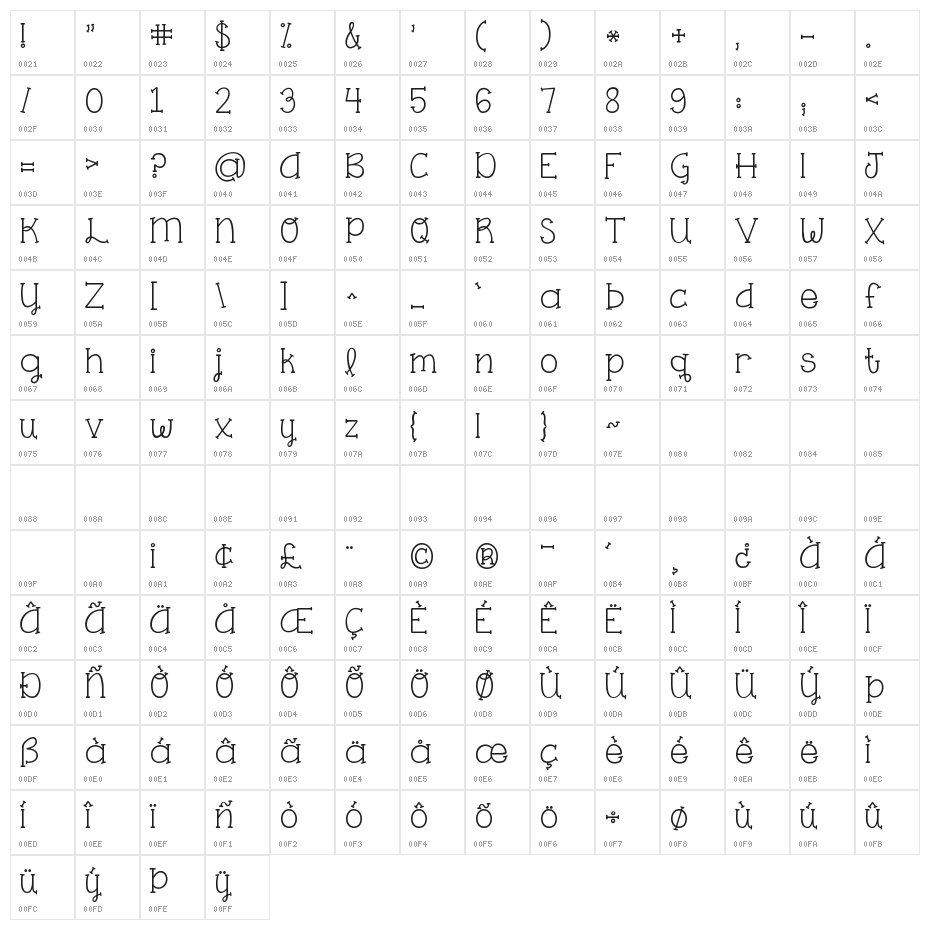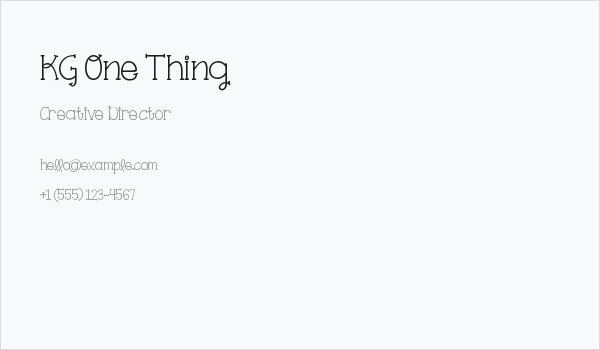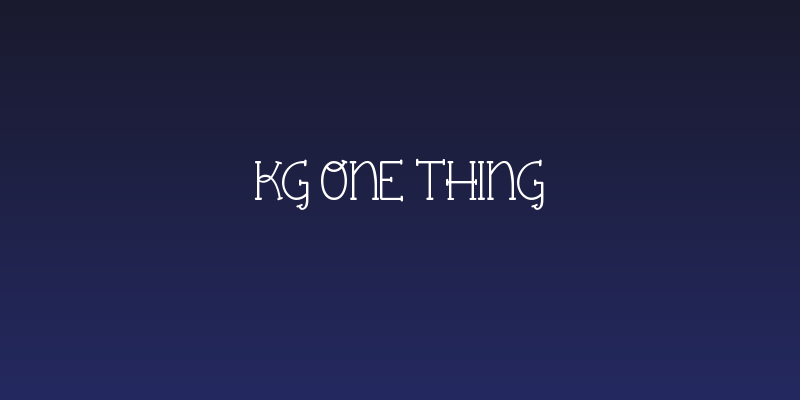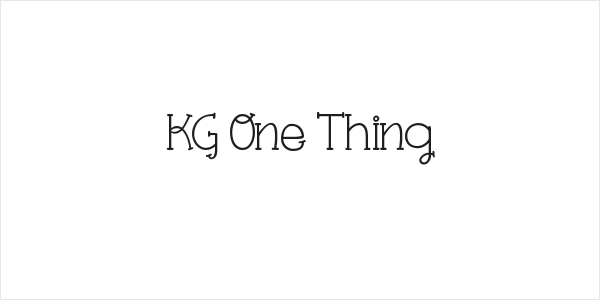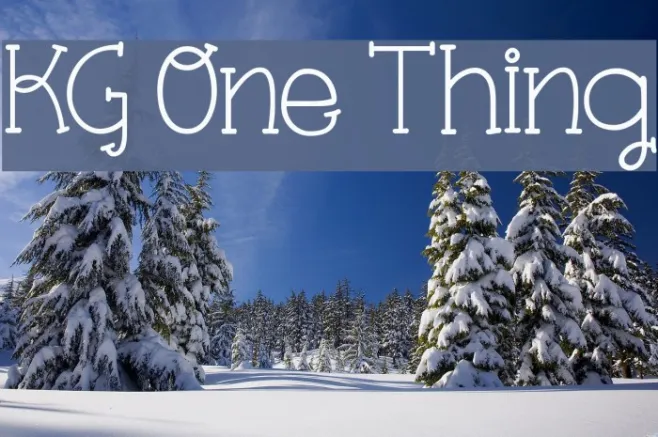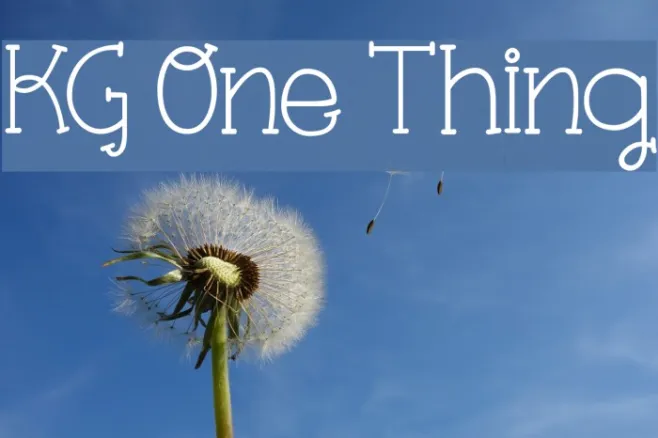
KG One Thing Font
KG One Thing Description
This playful and whimsical font features a unique combination of rounded and angular elements, creating a distinctive and eye-catching appearance. The characters are crafted with a consistent stroke width, giving it a uniform look. The uppercase letters are tall and slightly narrow, while the lowercase letters maintain a similar style with a touch of elegance. The numerals are clear and easy to read, matching the overall style of the alphabet. Special characters are included, each designed to complement the font's quirky aesthetic. This font is perfect for projects that require a fun and informal touch.
| Proposed Projects | Great for children's books, playful branding, greeting cards, and creative posters. |